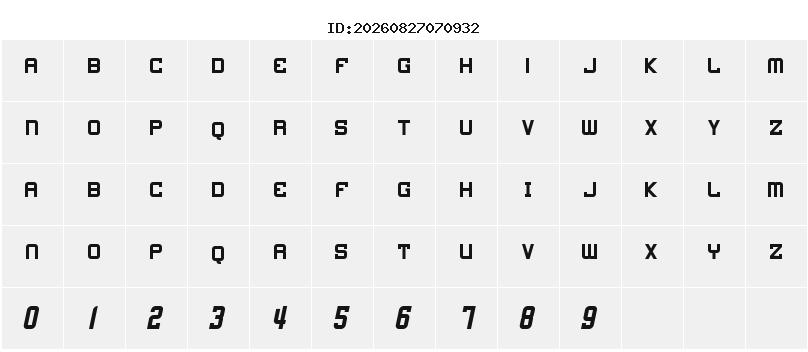
• Font Name: 4th and Inches
• Designer: Abdul
About 4th and Inches.ttf
4th and Inches.ttf is a modern, elegant sans-serif font designed for ultimate readability and visual harmony. Perfect for branding, headlines, web design, and print materials.